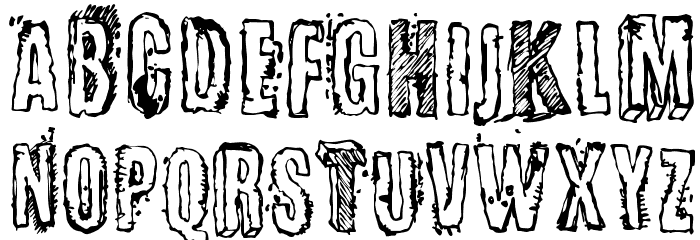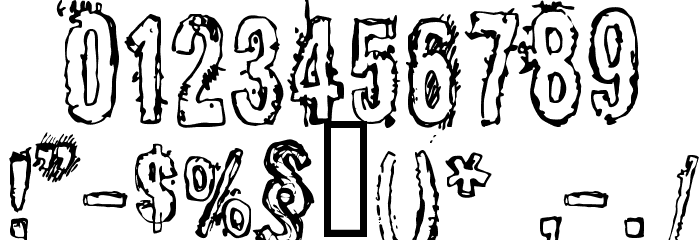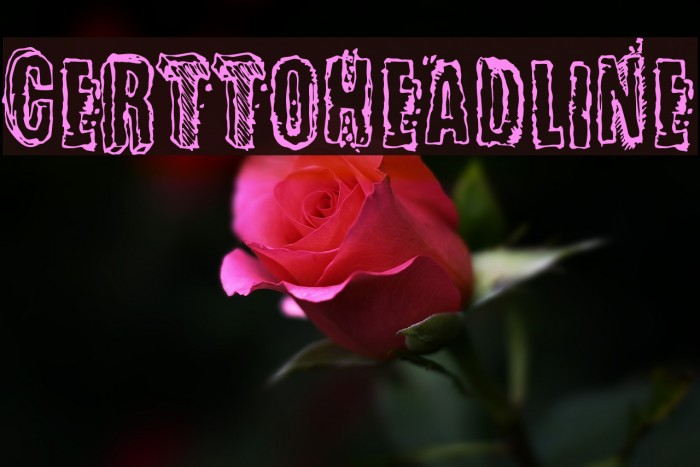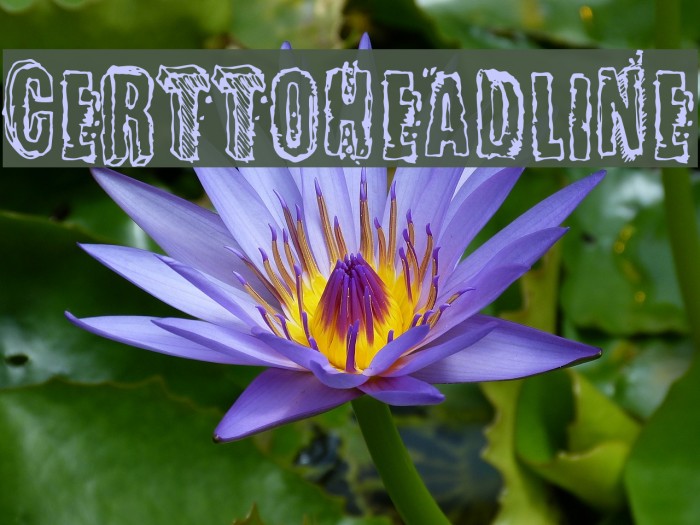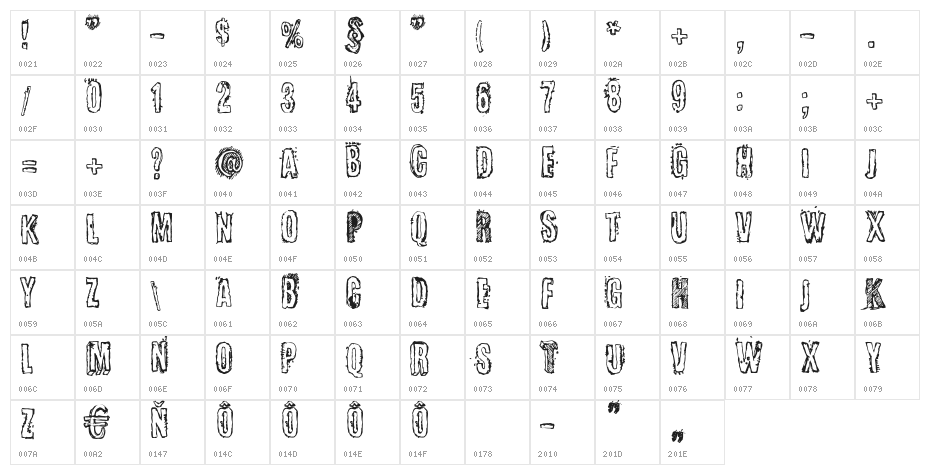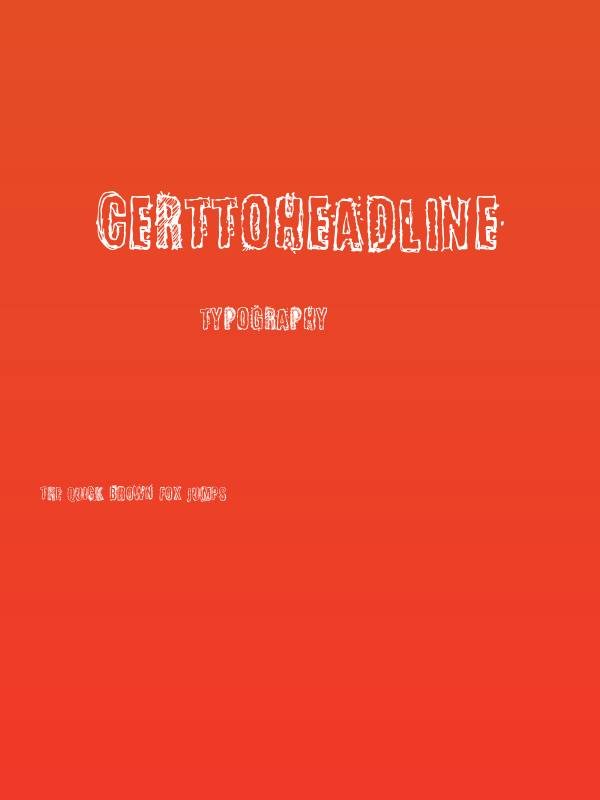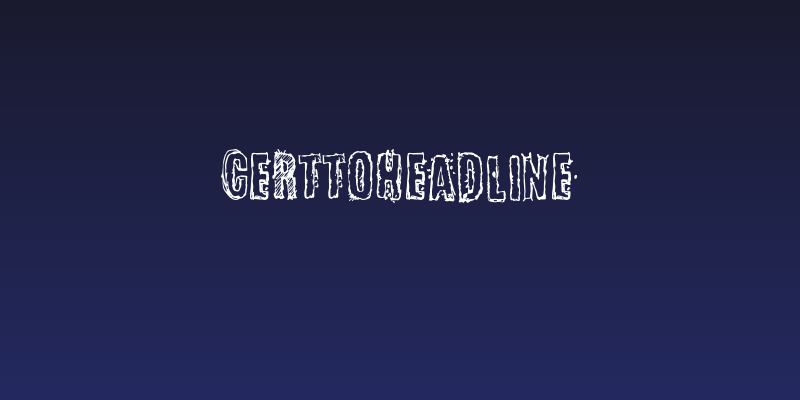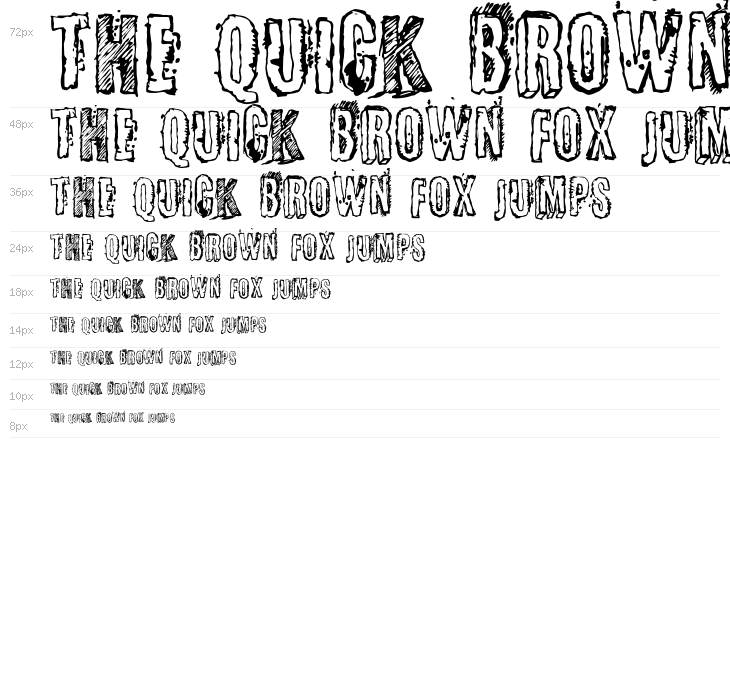
CerttoHeadline Font
This font features a bold, distressed style with a hand-drawn appearance. The characters are outlined with irregular, sketch-like strokes, giving them a rugged and textured look. The uppercase and lowercase letters maintain a consistent style, with the uppercase being slightly larger and more pronounced. Numbers and special characters follow the same aesthetic, ensuring a cohesive design throughout. The font's unique, artistic flair makes it stand out, ideal for projects that require a bold statement or a vintage, handcrafted feel.
A bold, distressed font with a hand-drawn, textured style.
- Proposed Projects: Ideal for posters, album covers, branding, and any design needing a bold, artistic touch.
- Overall Style: Vintage, Decorative